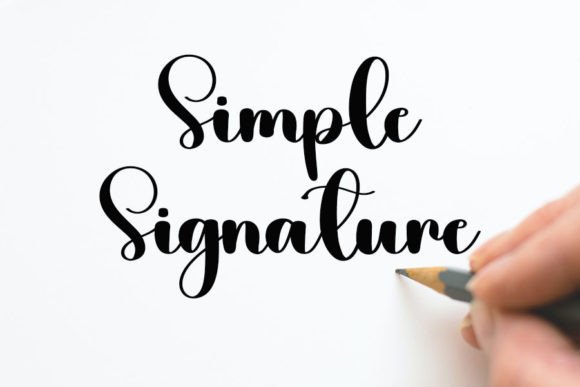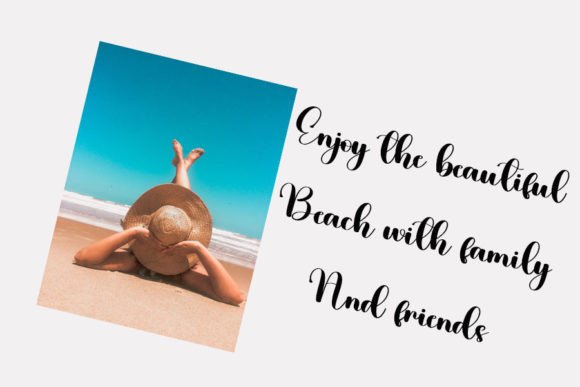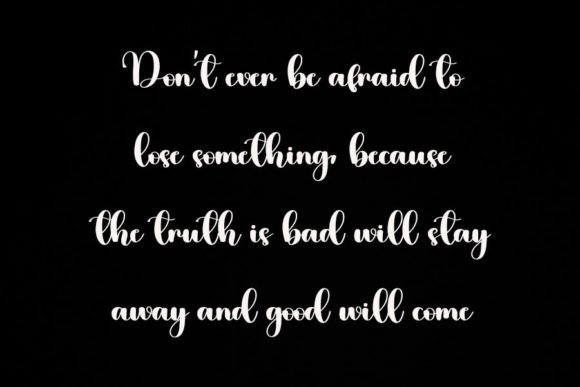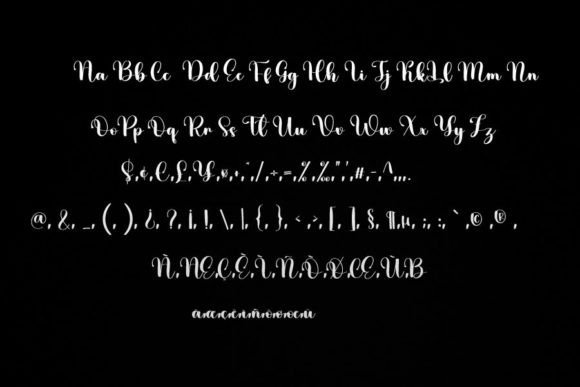
Rich Font
**”Rich” Handwritten Font: Elevate Your Designs with a Luxurious Spark**
The “Rich” handwritten font is a stunning typeface that brings a touch of luxury and opulence to your design projects. With characters that gracefully glide along the baseline, this font exudes an air of elegance and sophistication, making it the perfect choice for a wide range of creative endeavors. Here are some ways to utilize the “Rich” font to enhance your designs:
1. **Invitations:** Create exquisite and captivating invitations for weddings, galas, or upscale events. The “Rich” font’s elegant style sets the tone for a memorable occasion and conveys a sense of grandeur.
2. **Greeting Cards:** Design eye-catching greeting cards for special occasions such as birthdays, anniversaries, or holidays. The font’s beauty enhances the sentiments expressed in your cards and adds a touch of class.
3. **Product Packaging:** Elevate the packaging of high-end products, such as premium chocolates, fine wines, or luxury cosmetics, with the “Rich” font to communicate a sense of opulence and quality.
4. **Logo Design:** Craft logos and branding materials for boutique businesses, high-end brands, or luxury labels seeking a distinctive and refined identity. The font imparts a sense of sophistication to your branding.
5. **Quotes:** Design visually striking quote graphics for social media, posters, or merchandise. The “Rich” font’s luxurious touch amplifies the impact of your quotes and messages, making them more memorable.
6. **Menu Design:** Create sophisticated menus for fine dining restaurants or upscale eateries. The font imparts an air of refinement to the dining experience, setting the stage for an exquisite meal.
7. **Stationery:** Design personalized stationery sets with the “Rich” font, perfect for handwritten notes, letters, and correspondence. It adds an element of elegance to your written communication.
8. **Wedding Materials:** Craft exquisite wedding materials, including save-the-date cards, menus, and place cards. The font complements the grandeur of a wedding celebration and adds a touch of luxury to every detail.
9. **Jewelry Labels:** Use the font in branding and labeling for high-end jewelry and accessory lines. It adds an aura of exclusivity and style to your pieces, making them even more appealing.
10. **Magazine Headings:** Incorporate the font in magazine headings and article titles to create a luxurious and captivating look for editorial content. It adds a refined touch to publications.
11. **Art Exhibitions:** Apply the font to promotional materials for art exhibitions, gallery openings, or cultural events, adding an aura of artistic sophistication and elegance.
12. **Fashion Lookbooks:** Use the “Rich” font in fashion lookbooks, catalogs, and promotional materials for clothing and accessory brands that embrace luxury and high fashion.
13. **Website Banners:** Incorporate the font in website banners and headers to make a bold statement and establish a luxurious online presence that resonates with upscale audiences.
14. **Product Labels:** Enhance the labels of premium and artisanal products, such as handcrafted goods or high-quality beverages, with the “Rich” font for a touch of sophistication and exclusivity.
15. **Hotel Branding:** Apply the font to branding materials for luxury hotels and resorts to create an upscale and inviting atmosphere that reflects opulence and hospitality.
16. **Event Posters:** Design elegant posters for formal events, galas, or fundraisers, featuring the “Rich” font to evoke a sense of refined style and attract discerning attendees.
17. **Cocktail Menus:** Craft stylish cocktail menus for bars or lounges, showcasing the font to create an inviting and upscale ambiance that enhances the overall drinking experience.
18. **Interior Design:** Use the font in promotional materials for interior design firms or luxury home decor brands to evoke a sense of refined style and sophistication in home design.
The “Rich” handwritten font offers a harmonious blend of sophistication and charm, making it a versatile choice for various design projects. Its graceful and elegant style adds depth and refinement to your creative work, leaving a lasting impression on your audience. Embrace the “Rich” font’s luxurious spark as you use it to create captivating designs that exude opulence and grace.